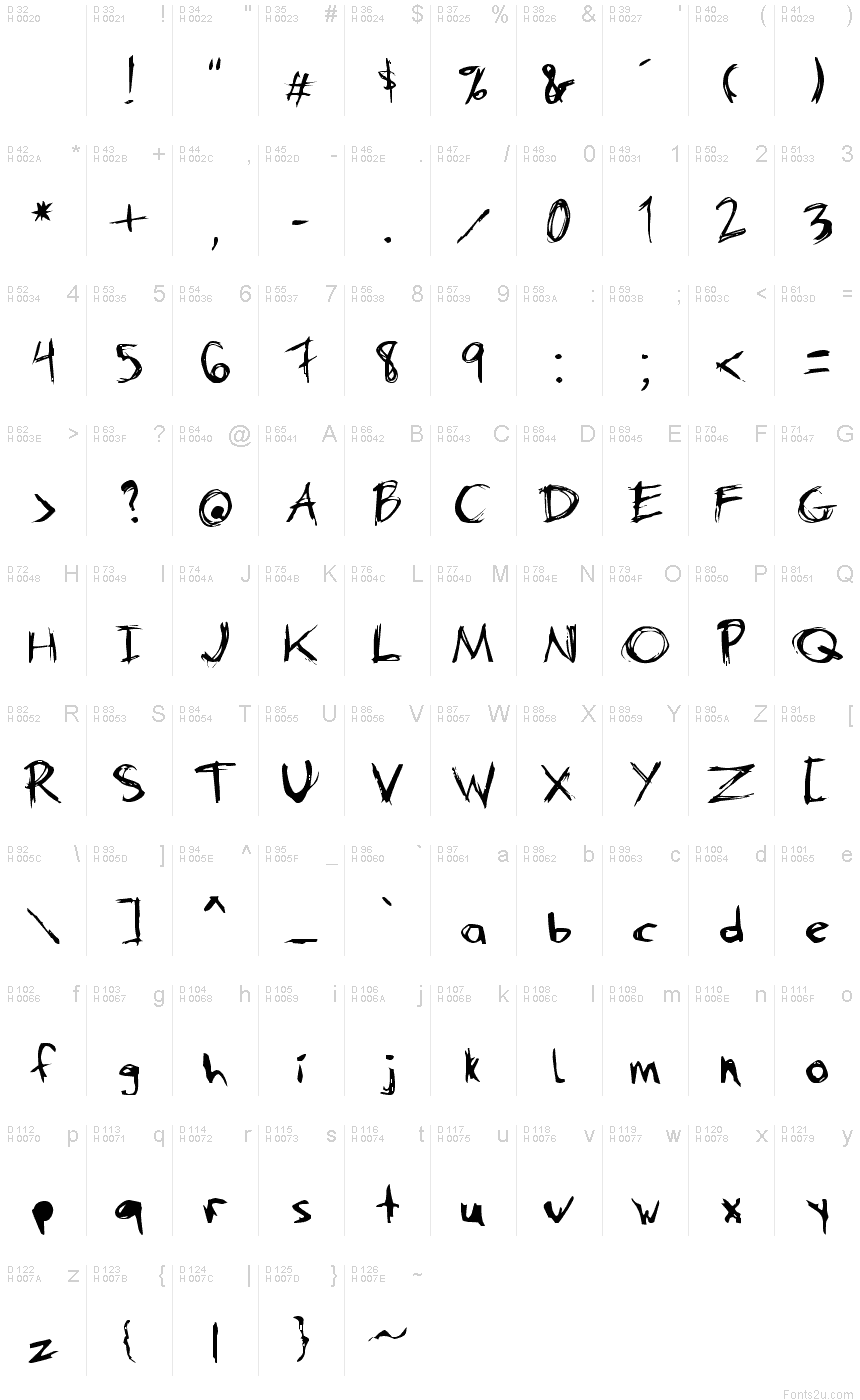
DANimal
DANimal font by Dan Wasielewski is a free trash font, a hand-scrawled typeface that looks like it’s been ripped straight off a beat-up notebook cover. Jagged, claw-like strokes, irregular letter heights, and twitchy angles give it a feral, barely-contained energy. It feels messy in the best way—like wet ink scratched across cardboard or a wall at 2 a.m.
Using DANimal font, your titles instantly scream across gig posters, horror covers, underground zines, skateboard stickers, escape-room branding, and haunted house flyers. This free font works best blown up large, where every scratch and wobble can really show. Pair it with a plain, narrow sans serif for body text to keep layouts wild but readable.